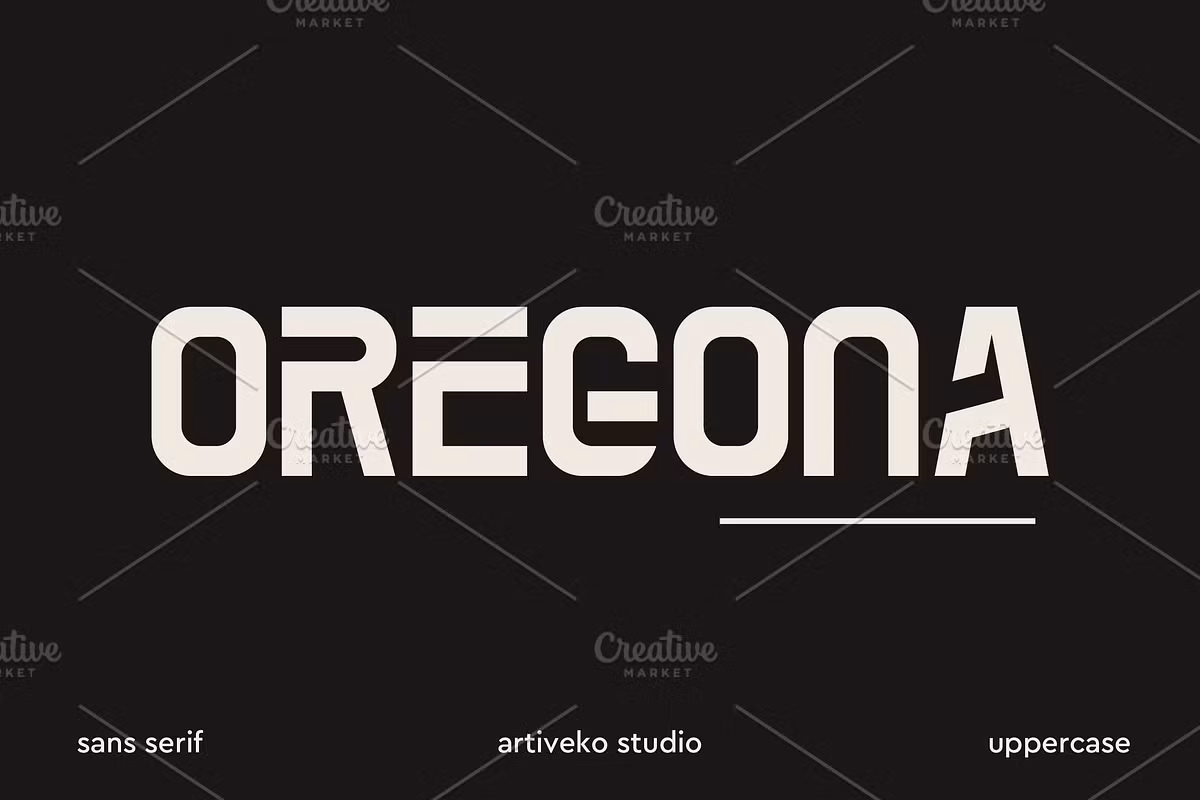
Oregona Condensed Sans Serif Font Free Download is a sleek and modern typeface perfect for minimalist design lovers. With its clean lines, tight letter spacing, and strong vertical structure, Oregona delivers both sophistication and functionality. Whether you're working on branding, editorial layouts, or digital interfaces, this font adds a professional touch that makes your design stand out.
Designers love the versatility of Oregona Condensed Sans Serif—it balances elegance with boldness, making it ideal for everything from logo designs to poster headlines. The condensed styling ensures you save space without compromising readability.
Looking for a reliable sans serif that communicates strength and clarity? Oregona Condensed Sans Serif Font Free Download is a go-to choice. Its timeless appeal ensures it fits in both modern and classic projects.